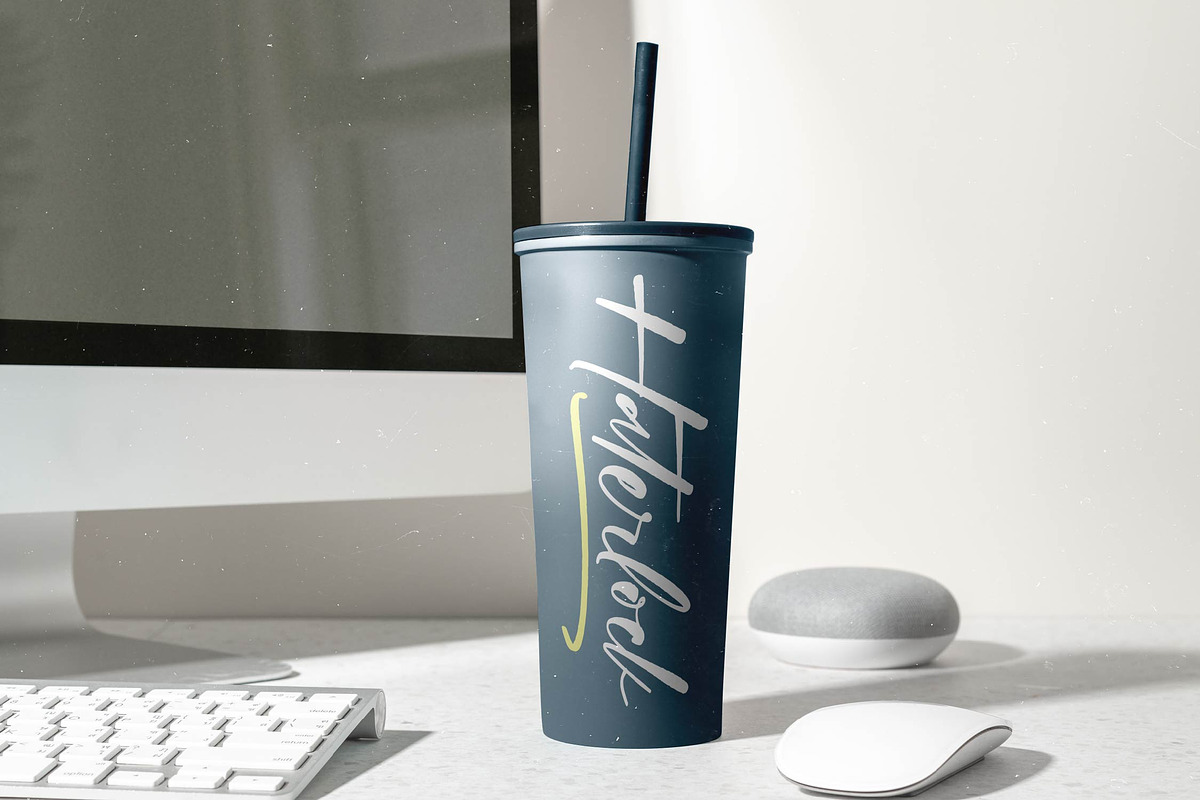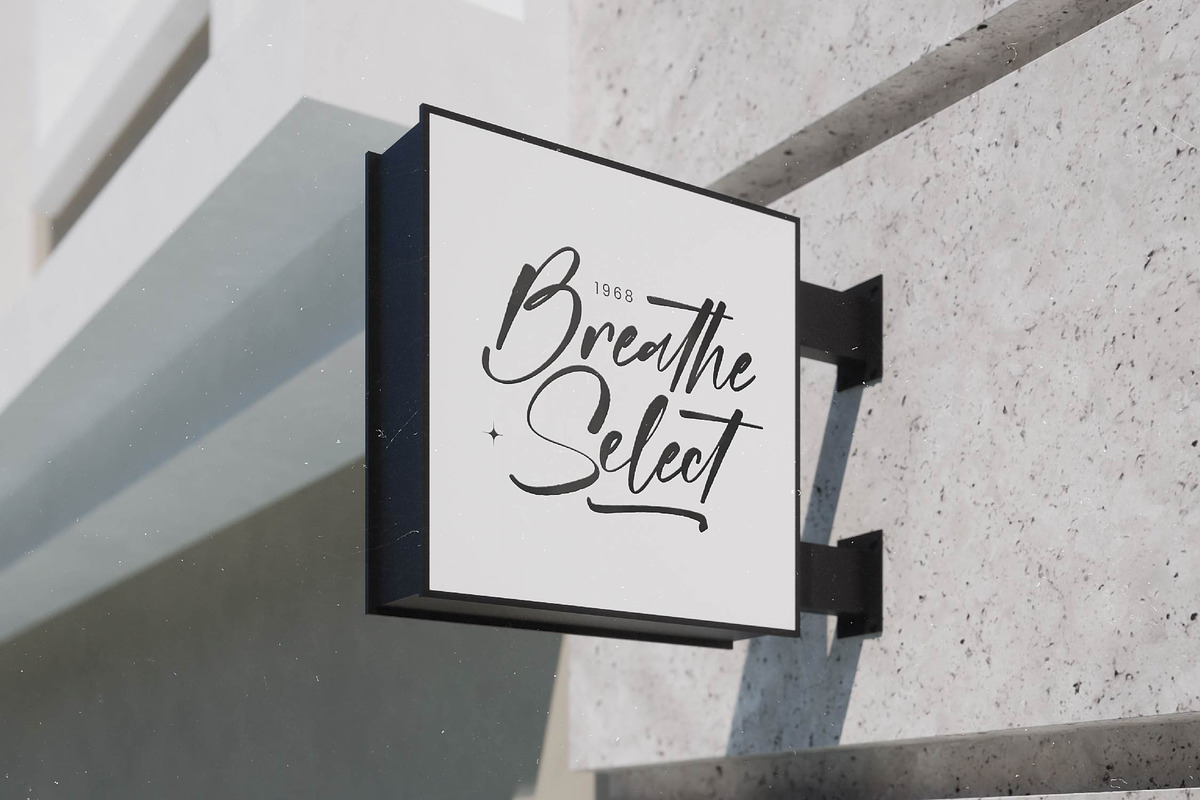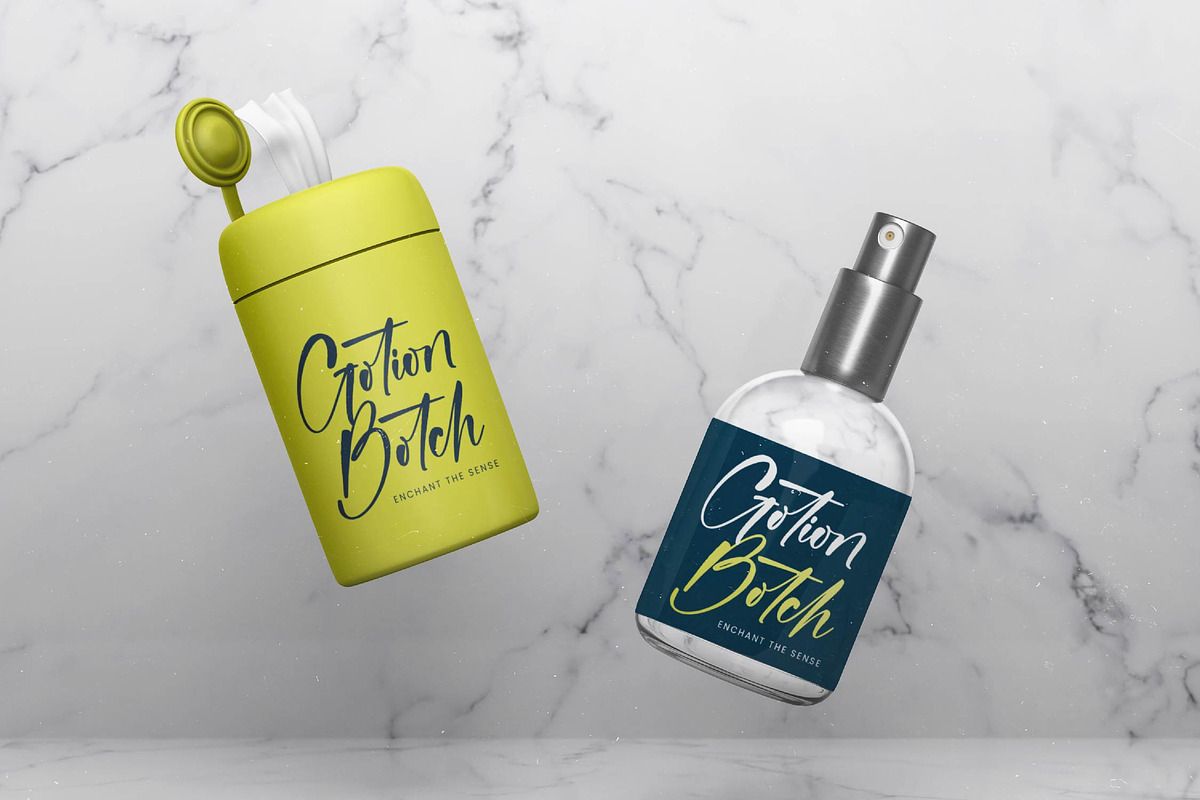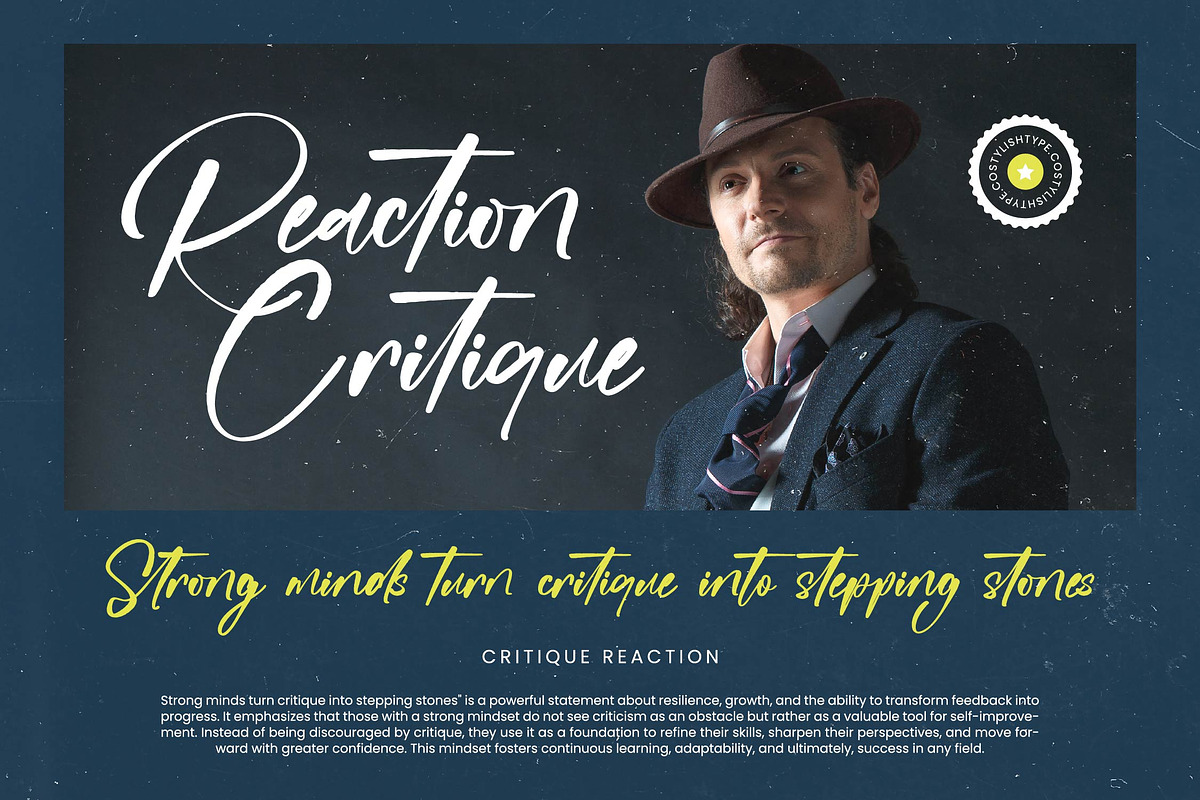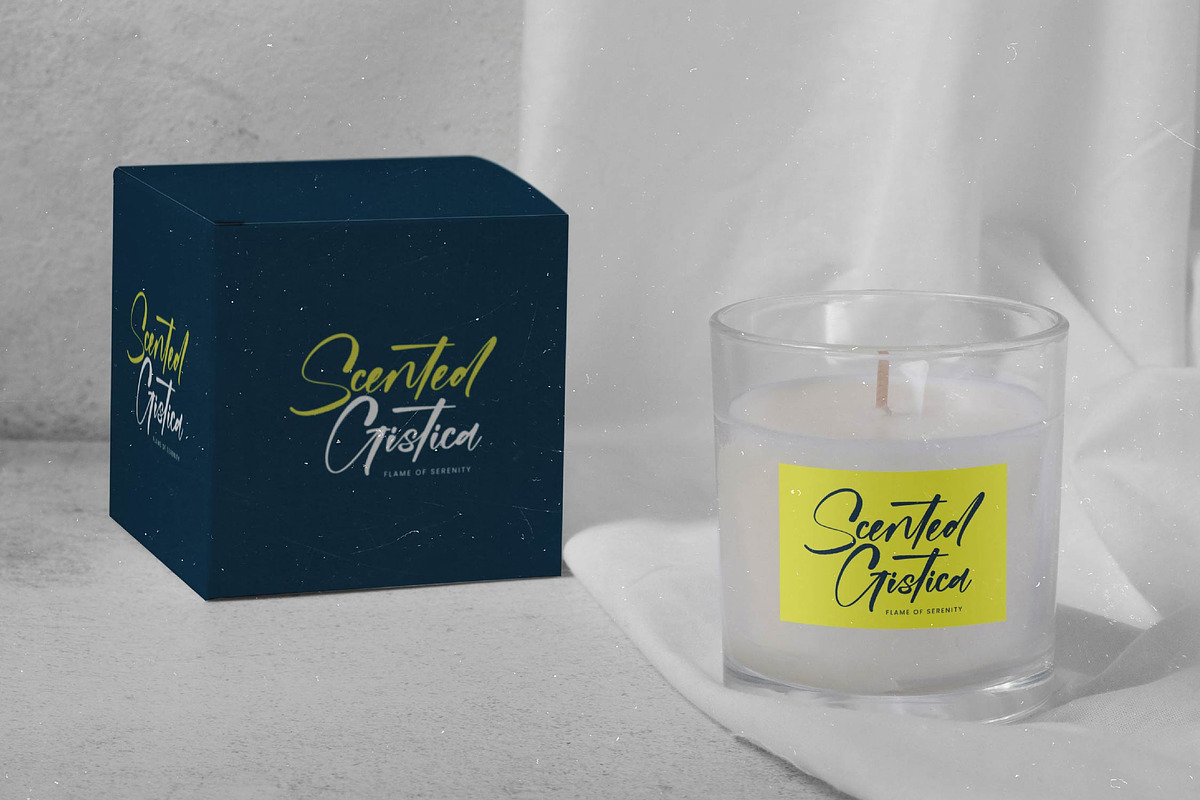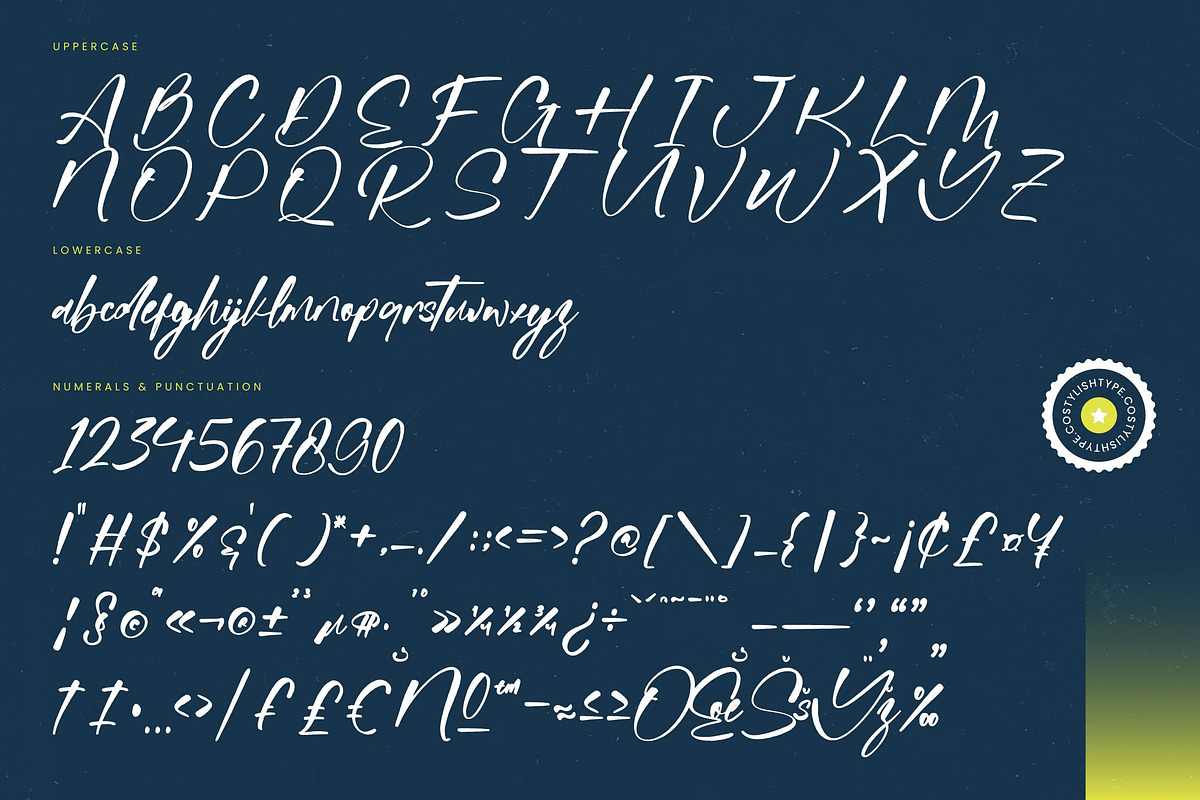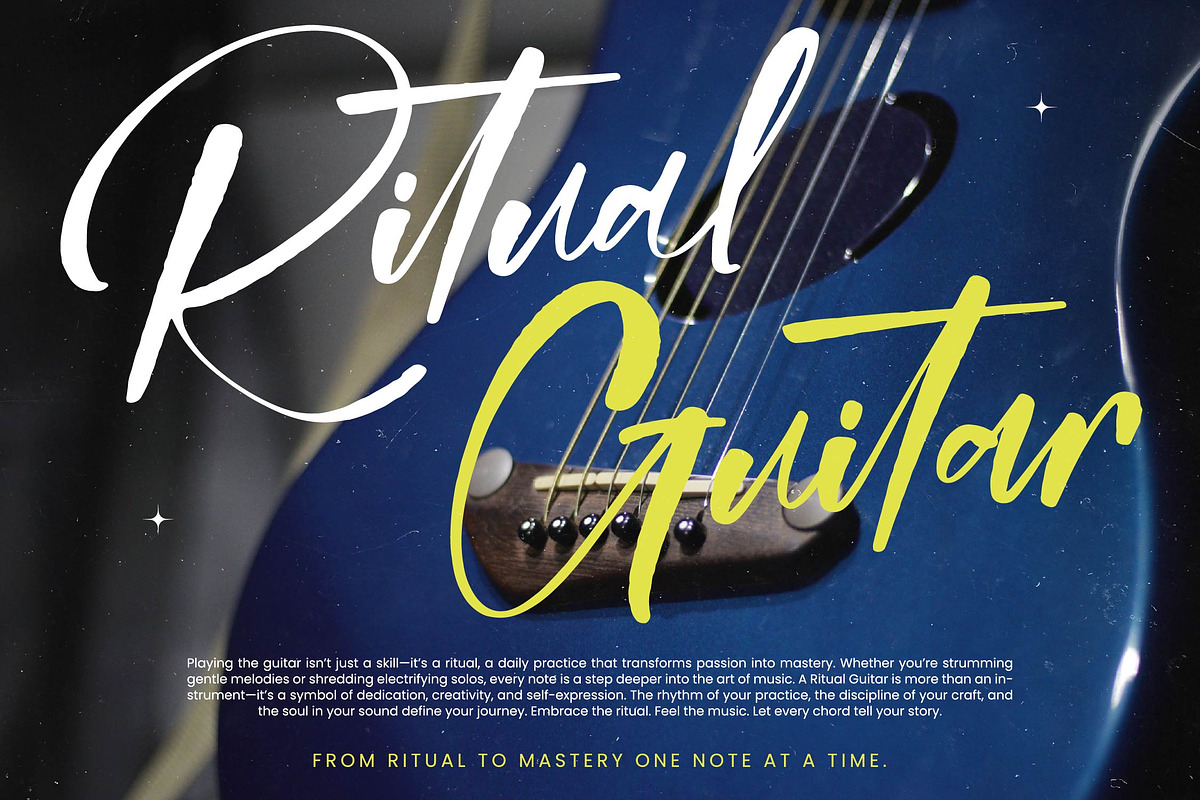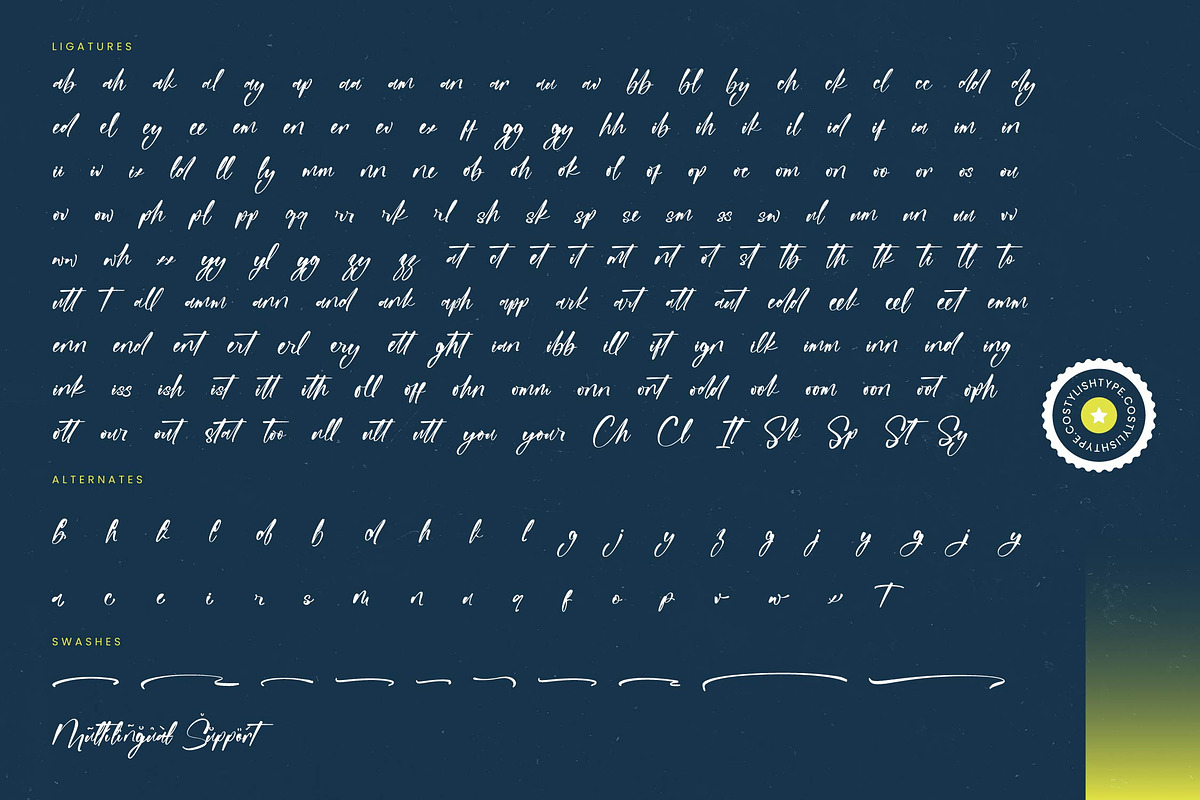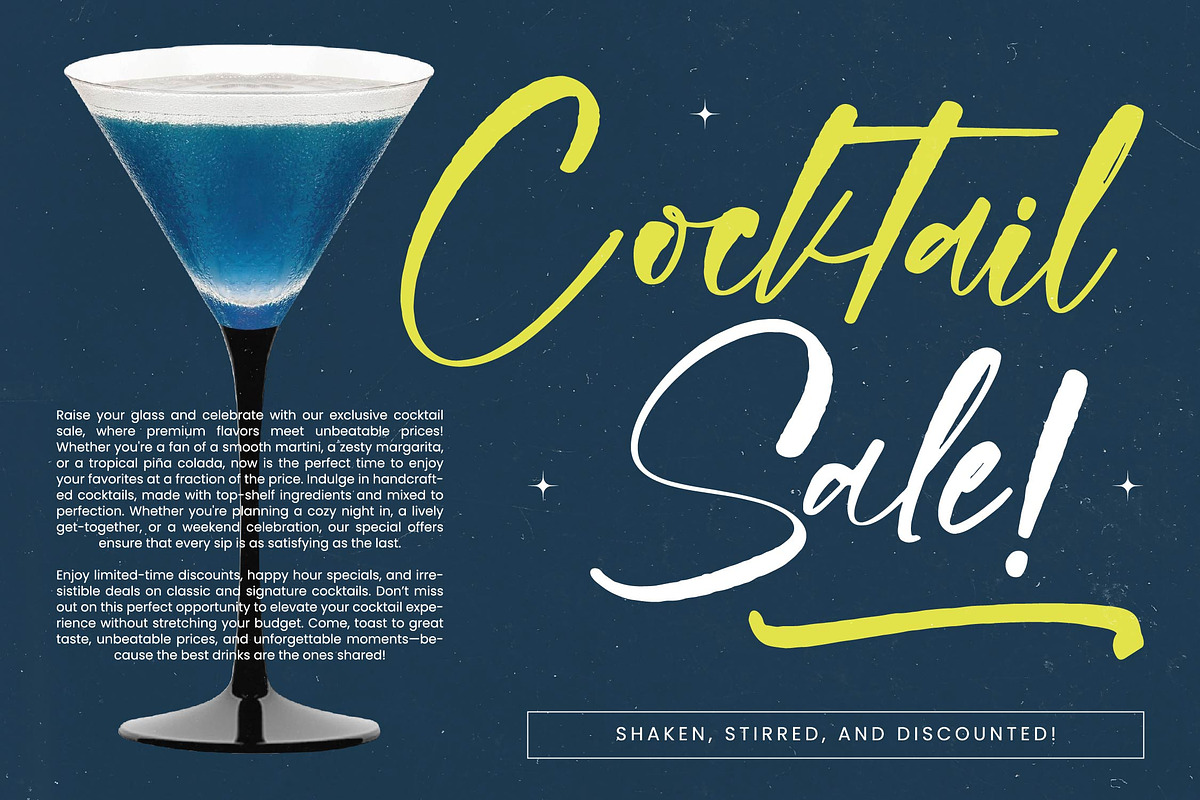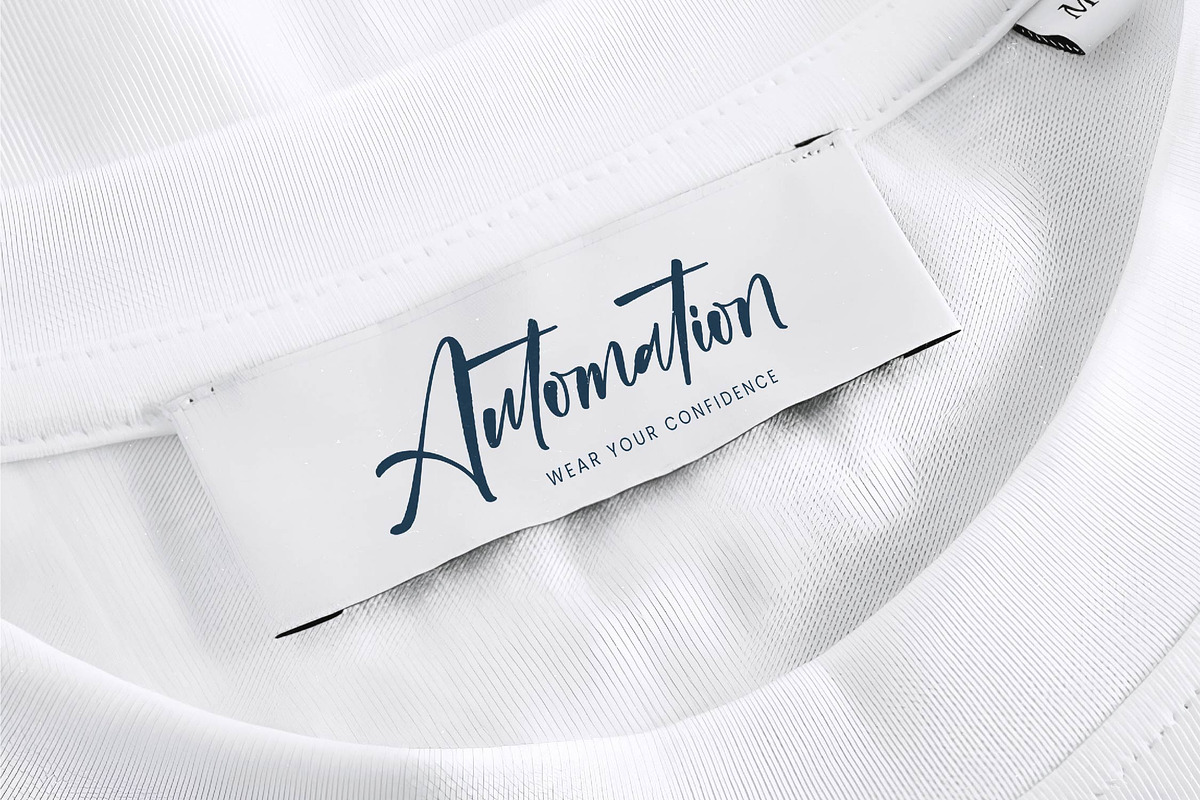
Habitual Detective Bold Handwritten
Habitual Detective - Bold Handwritten Font , from Stylishtype.Co , Suitable for any projects such as: logos, branding projects, homeware designs, product packaging, mugs, quotes, posters, shopping bags, t-shirts, book covers, name card, invitation cards, greeting cards, label, photography, watermark, special events, and all your other luxury and beautiful projects that need a Luxury Script taste.
- 179 Ligature 37 Alternates & 10 Swashes